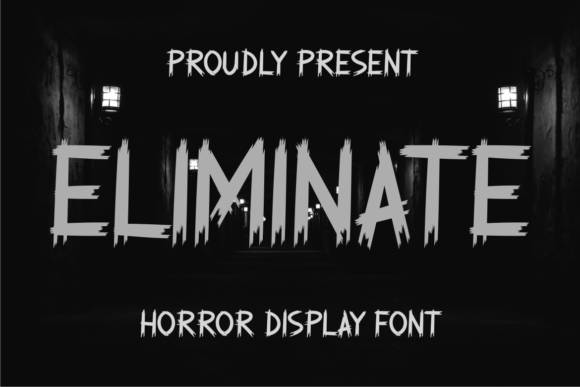
Step into the realm of the unknown with Eliminate Font, a mesmerizing display font that conjures a captivating atmosphere of mystery and intrigue. Its haunting glyphs, reminiscent of a ghostly whisper, are meticulously crafted to evoke the spirit of Halloween celebrations.
Unleash your creativity and let Eliminate Font cast its spell on your Halloween designs. Conjure invitations that send shivers down the spine, posters that scream with eerie elegance, and greeting cards that deliver a dose of spine-tingling delight. Whether you're crafting warning signs to ward off unwanted spirits or creating a website design that oozes Halloween charm, Eliminate Font is your ultimate font companion.
With its hauntingly beautiful curves and ethereal strokes, Eliminate Font possesses an undeniable allure that draws the eye and captivates the senses. Its unique charm transcends the boundaries of Halloween, making it an exceptional choice for projects seeking a touch of spooktacular personality. Embrace the spirit of the supernatural and let Eliminate Font unleash your imagination.
Embark on a typographic journey like no other, where letters dance with shadows and words weave tales of enchantment. Let Eliminate Font be your creative ally, guiding you through the realm of the macabre and leaving a trail of spine-chilling beauty in its wake. Its versatility extends beyond Halloween, making it a haunting addition to horror-themed projects, dark academia aesthetics, and designs that embrace the allure of the supernatural.